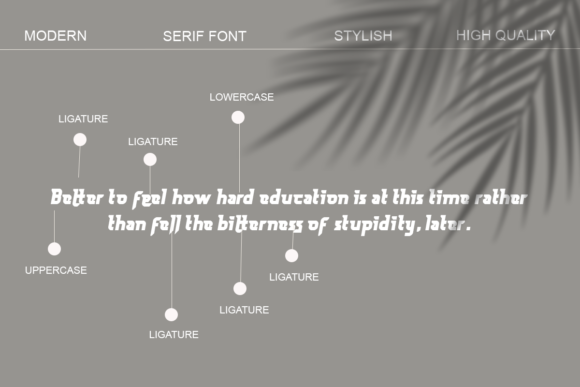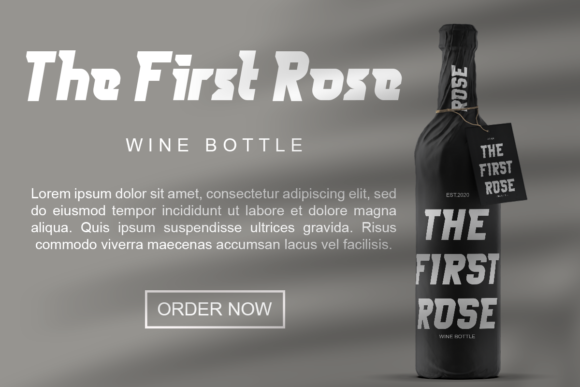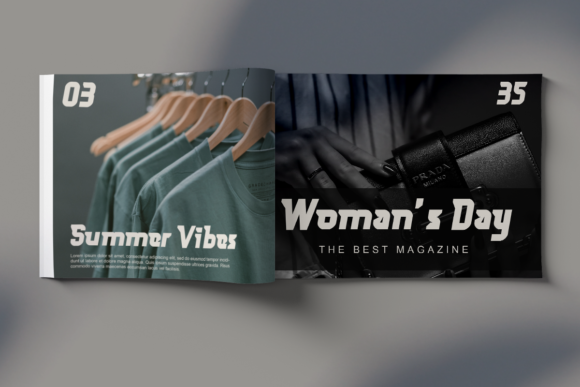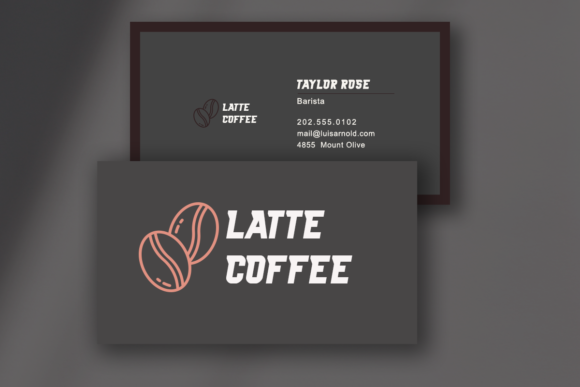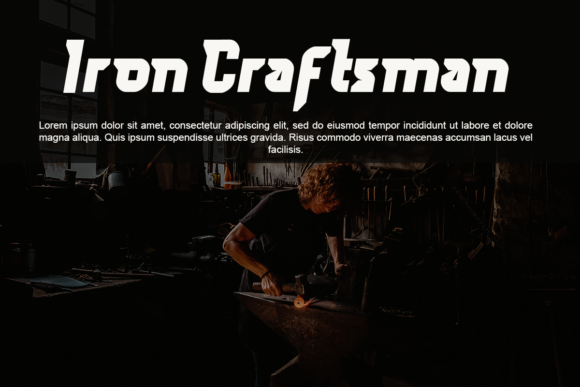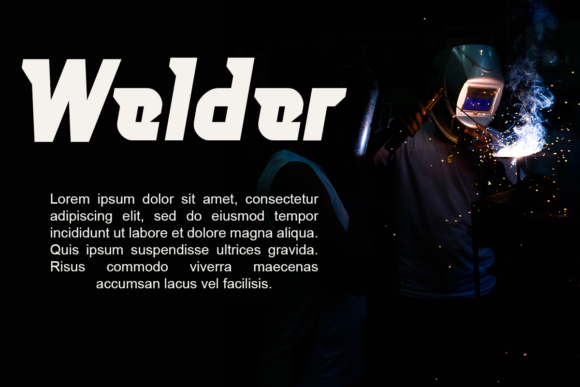
Introduction to Iron Wall Font
Iron Wall is a cool, bold and assertive serif font.
It will look stunning on any poster, flyer or print Use this font for your designs and explore its endless possibilities.
Key Features of Iron Wall Font
Why Choose Iron Wall Font?
Iron Wall Font offers exceptional quality and versatility, making it a valuable addition to your design toolkit. Whether you’re creating for personal projects or commercial use, Iron Wall Font delivers professional results.